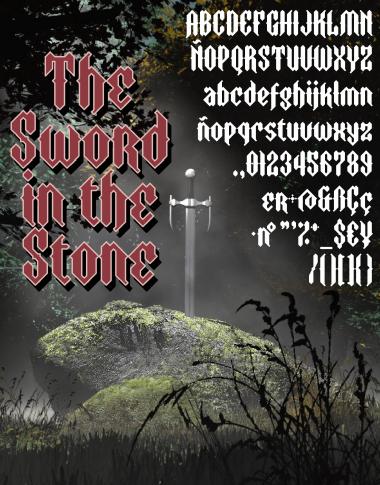
• Alternatives more classics to some glyphs: other "e" is at the "<" glyph, and another "r" is placed at the ">" one too. Hope you like it.
Preparing for the Blackletter competition? ;-)
Beautiful consistent blackletter typeface. 10/10
A beautifully rendered blackletter. 10/10
Beautiful! The horizontal line works very well!
Awesome! Neat blackletter font. 10/10
Wooow!
Beautiful work, lots of combinations of glyphs work so well together! 10/10
I love it! That's all that needs to be said. :)
Beautiful. Are you training for the next competition? Just one minor thing: I'm not sure about the "n". It looks unbalanced. Great work. 10/10
@Frodo 7: You're right once again, but I haven't found a better solution for the (unbalanced) "n". (And what is the origin of your comment (yours and laynecom too) about a "blackleter competition", please? It's a great idea, IMHO). Thank you a lot one more time, compañero.